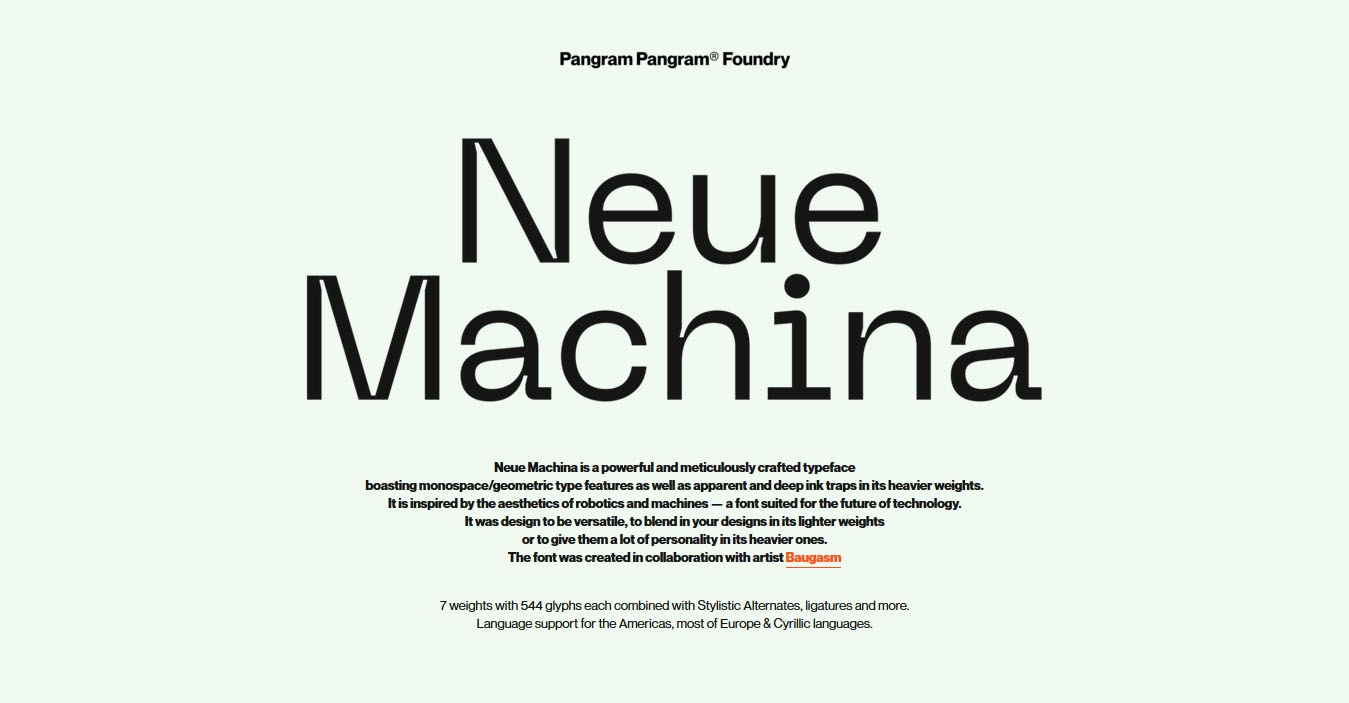
Neue Machina Font is perfect for industrial branding, automotive design, machinery logos, tech manufacturing, robotics companies, engineering firms, modern architecture, futuristic interfaces, precision instruments, and mechanical product design.
Neue Machina Font is exciting because it embodies the precision and power of industrial design with its bold, mechanical letterforms that communicate strength, reliability, and technological innovation. Its distinctive geometric structure and engineered aesthetic make it perfect for brands that want to convey industrial excellence, cutting-edge manufacturing, and uncompromising quality in competitive technical markets.
The Neue Machina Font family includes Thin, Light, Regular, Medium, Bold, Black weights, corresponding Italic versions, Condensed styles, Extended variations, Stencil cuts, and Industrial alternates, providing designers with comprehensive tools for creating powerful mechanical aesthetics and robust brand systems.
Neue Machina Font Free Download represents the evolution of industrial typography, featuring precision-crafted letterforms that capture the essence of modern manufacturing and mechanical engineering. This powerful typeface combines German design philosophy with contemporary functionality, creating a distinctive visual language that resonates with technical professionals and industrial audiences worldwide.
Whether you're developing manufacturing brands, designing automotive identities, creating engineering communications, or producing technical documentation, Neue Machina Font provides the industrial foundation needed for authoritative brand positioning. Its mechanical character makes it particularly effective for machinery manufacturers, automotive companies, robotics firms, and precision engineering services that demand technical credibility.
Perfect for industrial designers, automotive marketers, engineering communicators, and technical brand developers, this font offers the mechanical qualities essential for successful industrial branding. The typeface's systematic approach ensures consistent performance across technical drawings, product specifications, and industrial marketing materials.
Neue Machina Font includes comprehensive technical character sets, engineering-focused design elements, and precision spacing that guarantees superior performance in industrial design applications. Its mechanical approach to typography makes it indispensable for brands operating in technical industries. Engineer your brand identity with Neue Machina Font Free Download and create typography that builds industrial strength.